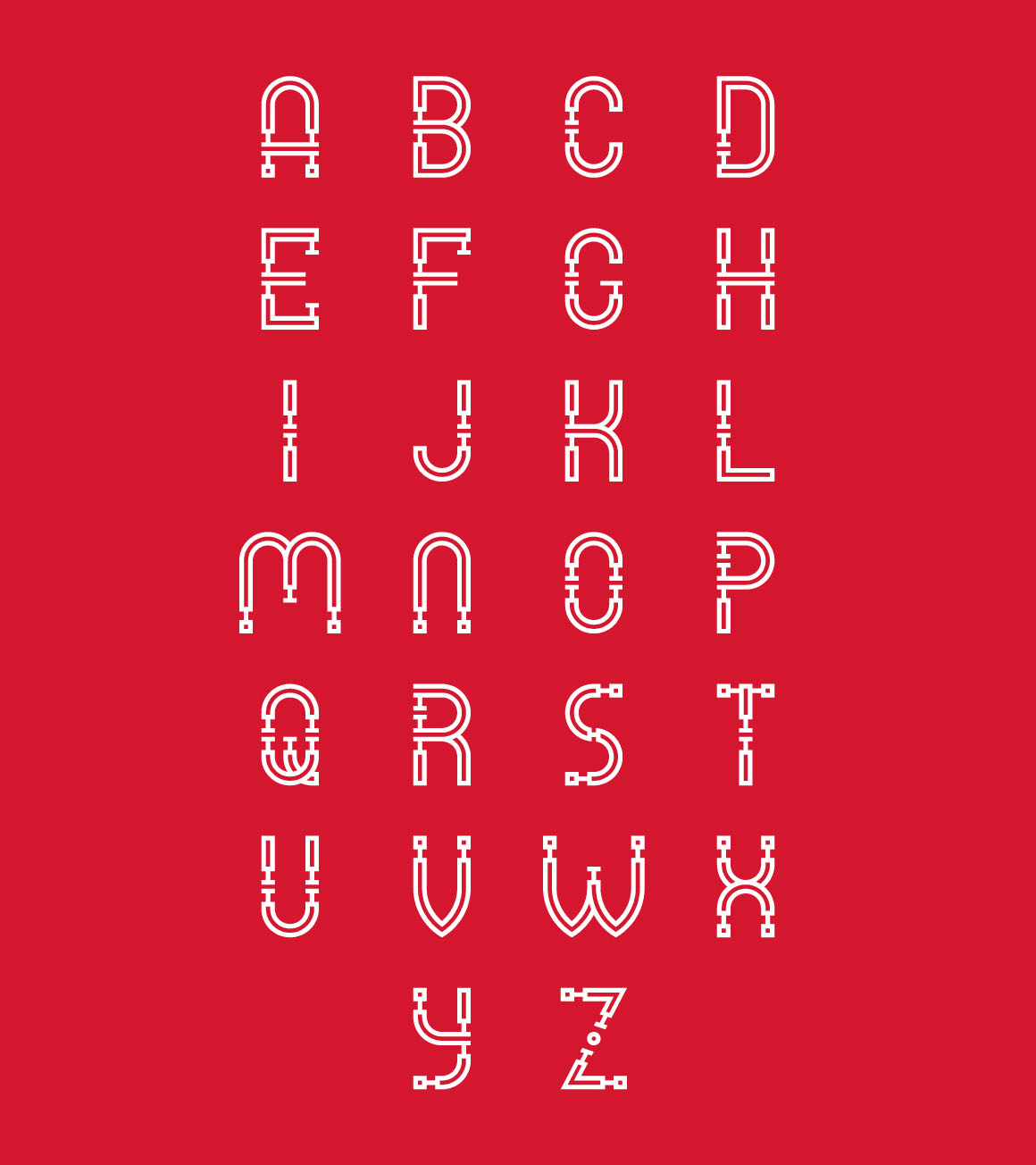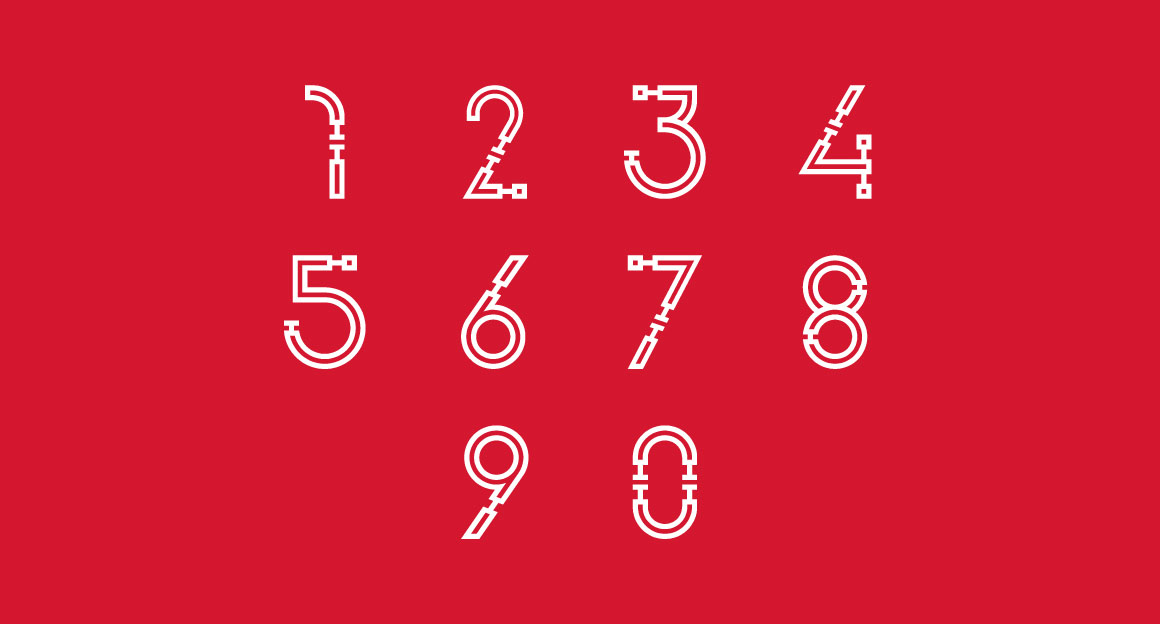
Mechano – Free Industrial Font
This cool custom font is from Andrea Prina. With cool industrial or geometric style and great for your new creative projects. Download and enjoy ;)